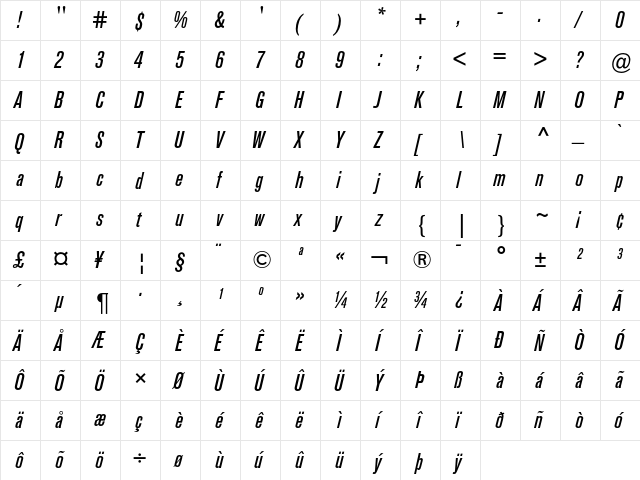
Berthold Akzidenz Grotesk BE Medium Condensed Italic Font Preview
Design Context for Berthold Akzidenz Grotesk BE Typeface
Berthold Akzidenz Grotesk BE has the quiet confidence of well-executed sans-serif typography: versatile, unobtrusive, and dependable at any size. The slanted form adds forward momentum and visual energy. The condensed width makes it efficient for tight spaces without sacrificing legibility.
Font Pairing: Works well alongside a characterful serif or display font that can carry the expressive load while Berthold Akzidenz Grotesk BE handles the functional copy.
Pro Tip: Try Berthold Akzidenz Grotesk BE in all-caps with moderate tracking for navigation and label copy — it performs well in systematic UI contexts.